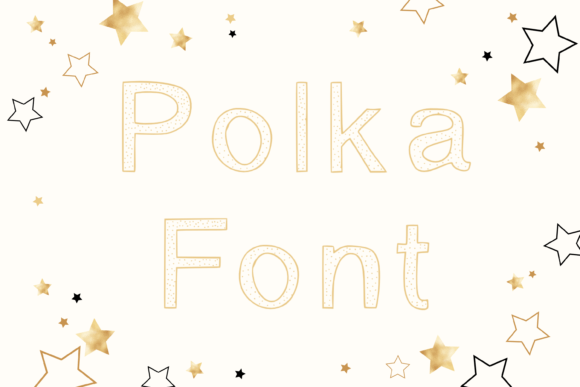
Kick-off your contest poster designs with the delightful Polka Font, a captivating and playful display typeface crafted by the skilled fonty88. Let Polka's charming characters dance across your posters and add a touch of fun and whimsy to your designs. From eye-catching announcements to playful invitations, Polka Font's magical energy is sure to leave a lasting impression. Step into a world of creative possibilities and embrace Polka's unique personality. Unleash your artistic flair and design contest posters that radiate joy and excitement, leaving your audience captivated and inspired.
Embark on a design adventure with Polka Font and relish in its versatility. Whether you're a seasoned designer or just starting your creative journey, Polka's intuitive nature welcomes you with open arms. Dive into a world of endless possibilities as you explore the font's playful shapes and whimsical characters. Let Polka guide you through the enchanting realm of typography, transforming your contest posters into visual masterpieces. Let Polka's energy ignite your imagination and elevate your designs to new heights.
With Polka Font adorning your contest posters, prepare to witness a surge of engagement, curiosity, and awe. Its magnetic charm attracts the eyes and captivates the hearts of your audience, leaving them eager to discover the wonders within your posters. Polka's ability to infuse life and personality into your designs will make your contest posters stand out from the mundane, promising an unforgettable experience for all who encounter them. So, embrace Polka Font, unlock your creative potential, and let your contest posters radiate with an energy that resonates with your audience.